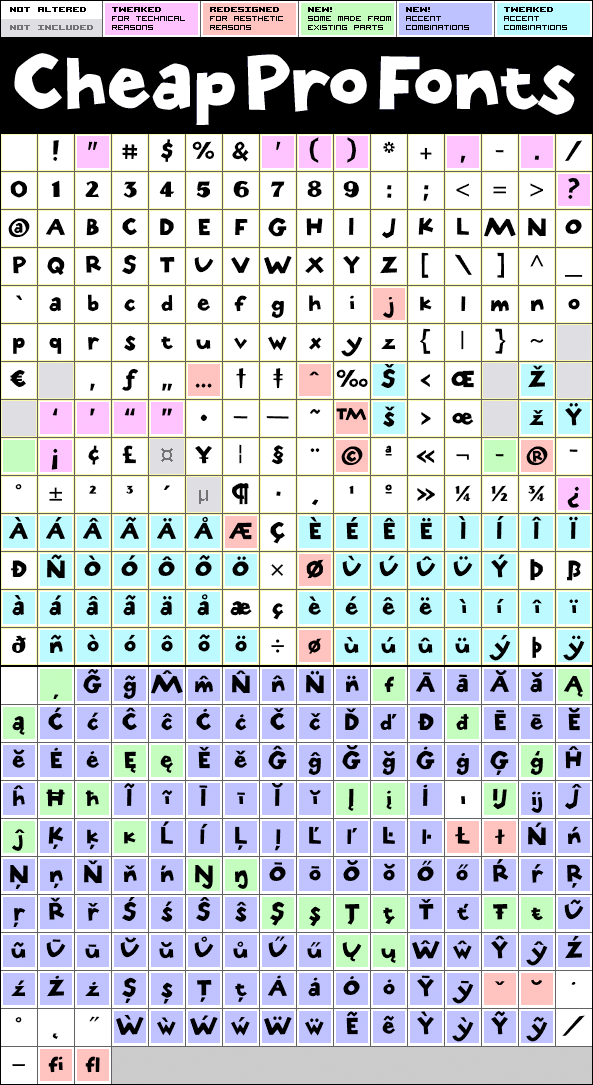
This font has sort of a rustic an ancient look, like stone carvings... The lowercase j has been redesigned to better fit with the other letters, and I've also made an alternate f (as contextual alternate) to make a tighter fit with following tall letters.
Stone Hinge Pro is a professionally reworked font that contains an extended character set for setting text in 65 languages requiring more than the basic A-Z!